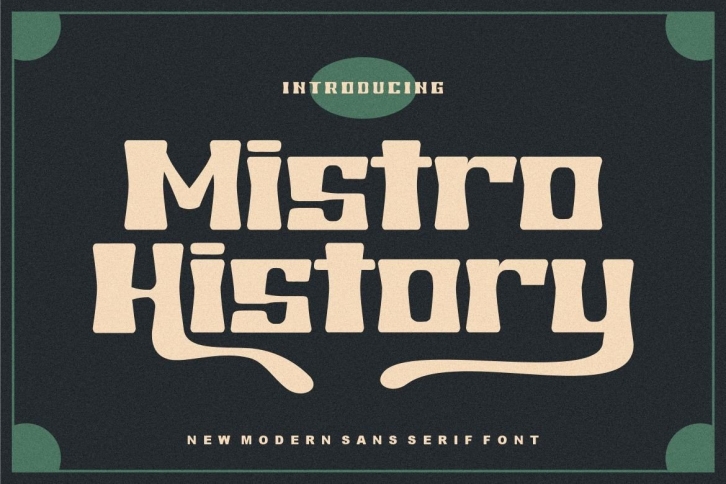
Mistro History is a bold and authentic display font. The font is suitable for any branding project like logo, t-shirt printing, export, and many more. It looks outstanding in a wide range of contexts.